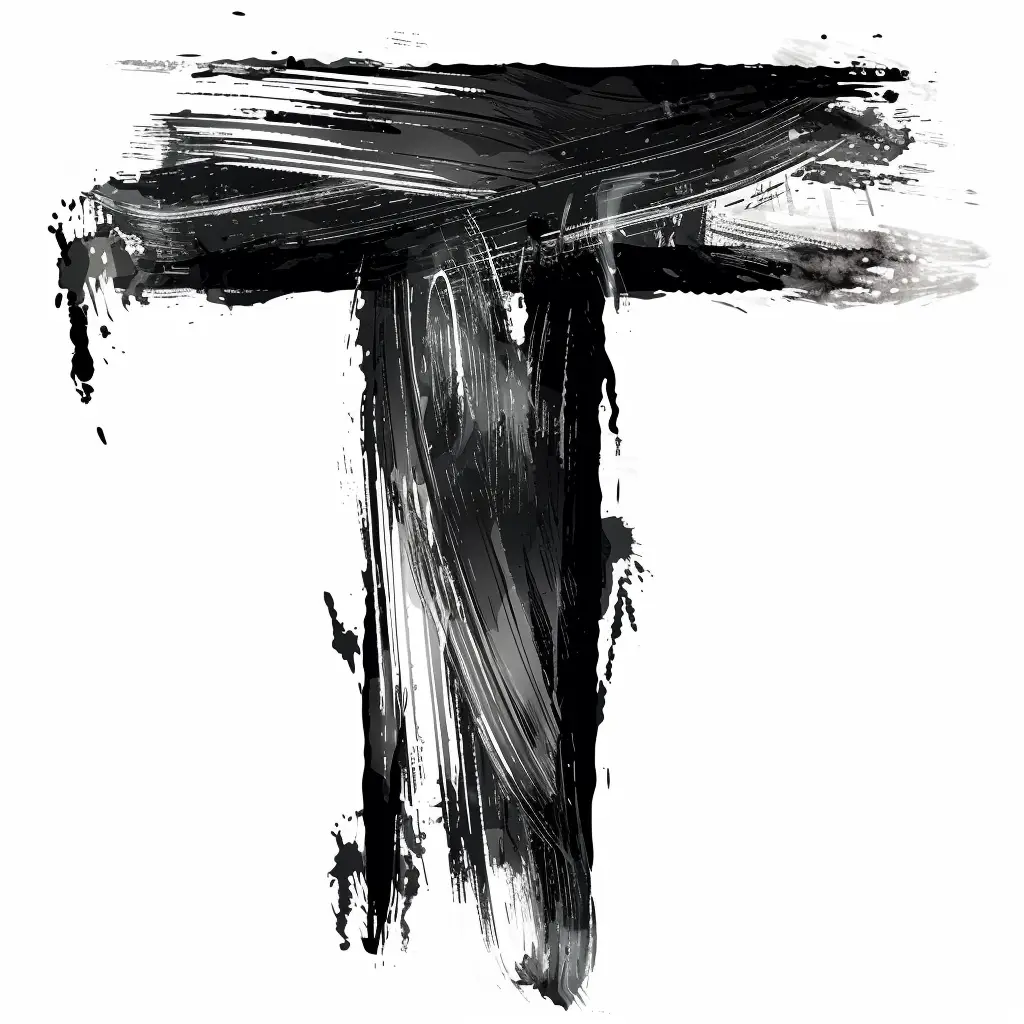
This image features a stylized letter "T" rendered in a bold, abstract brushstroke style. The design uses varying shades of black and gray, with textured, dynamic strokes and splatters that create a sense of movement and artistic flair. The monochromatic palette and rough, expressive lines emphasize a modern, graphic aesthetic.